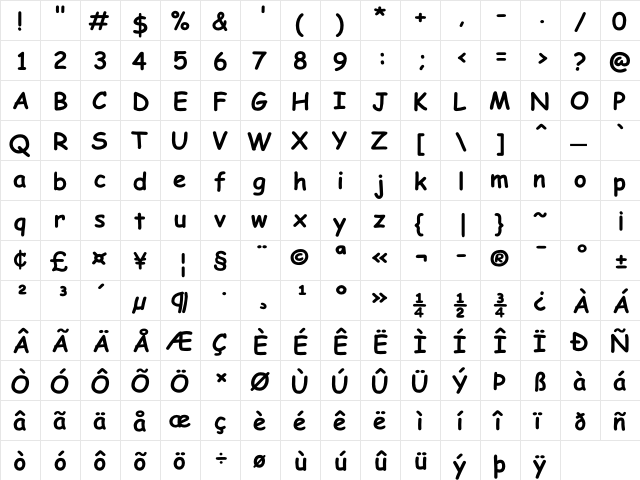
LHF Comic Caps Bold
| Foundry | Chuck Davis for Letterhead Fonts |
| Designer | Chuck Davis |
Design Context for LHF Comic Caps Typeface
LHF Comic Caps trades formality for fun, with bouncy, characterful letterforms that bring warmth and energy to any project.
Well-suited to food and beverage brands with personality, educational materials, and fun-forward identities.
Font Pairing: Pairs well with a rounded or humanist sans for body copy, maintaining the friendly tone without relying on LHF Comic Caps to carry extended reading.
Pro Tip: Use LHF Comic Caps at larger display sizes where its expressive character can land. Pair with a clean, simple sans for body copy to maintain readability.